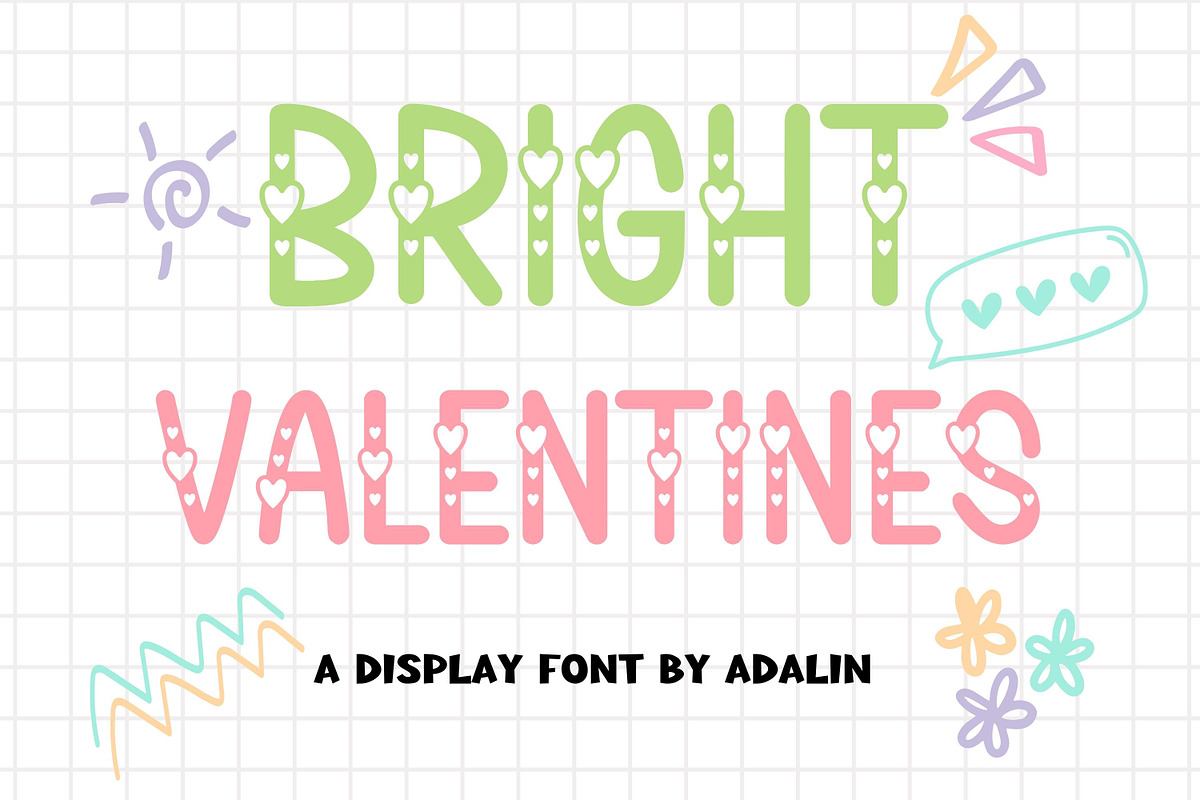
Bright Valentines Display Font Free Download is a bold and heartwarming typeface made to celebrate love in all its joyful forms. With playful curves, bubbly shapes, and a cheerful spirit, this font is perfect for Valentine’s Day cards, romantic social media posts, product packaging, wedding decor, and any design that needs a big dose of affection.
Its cute and lively style captures the excitement of love notes and sweet surprises. Whether you're designing for a seasonal promotion or personal keepsake, Bright Valentines makes your message shine with charm and warmth.
Ideal for both digital and print use, it brings love to life with every letter.